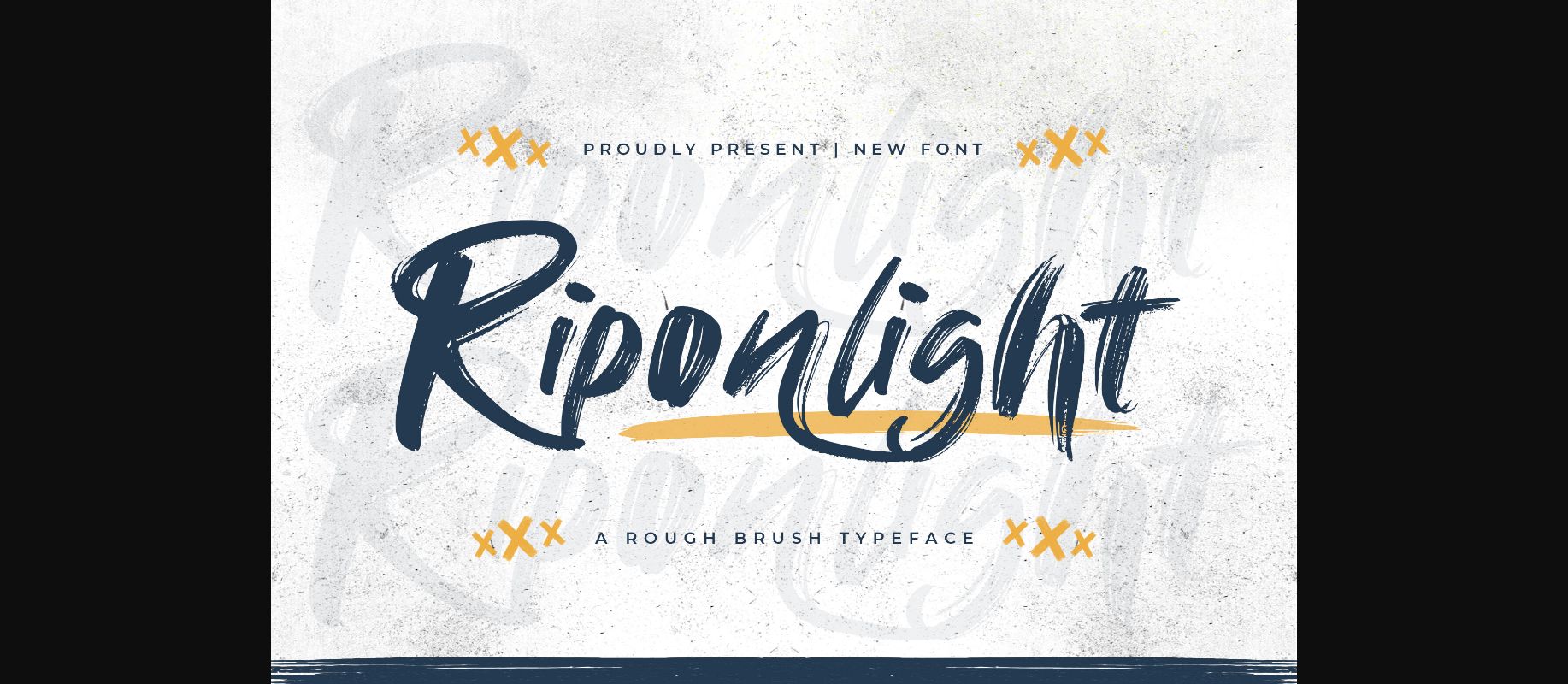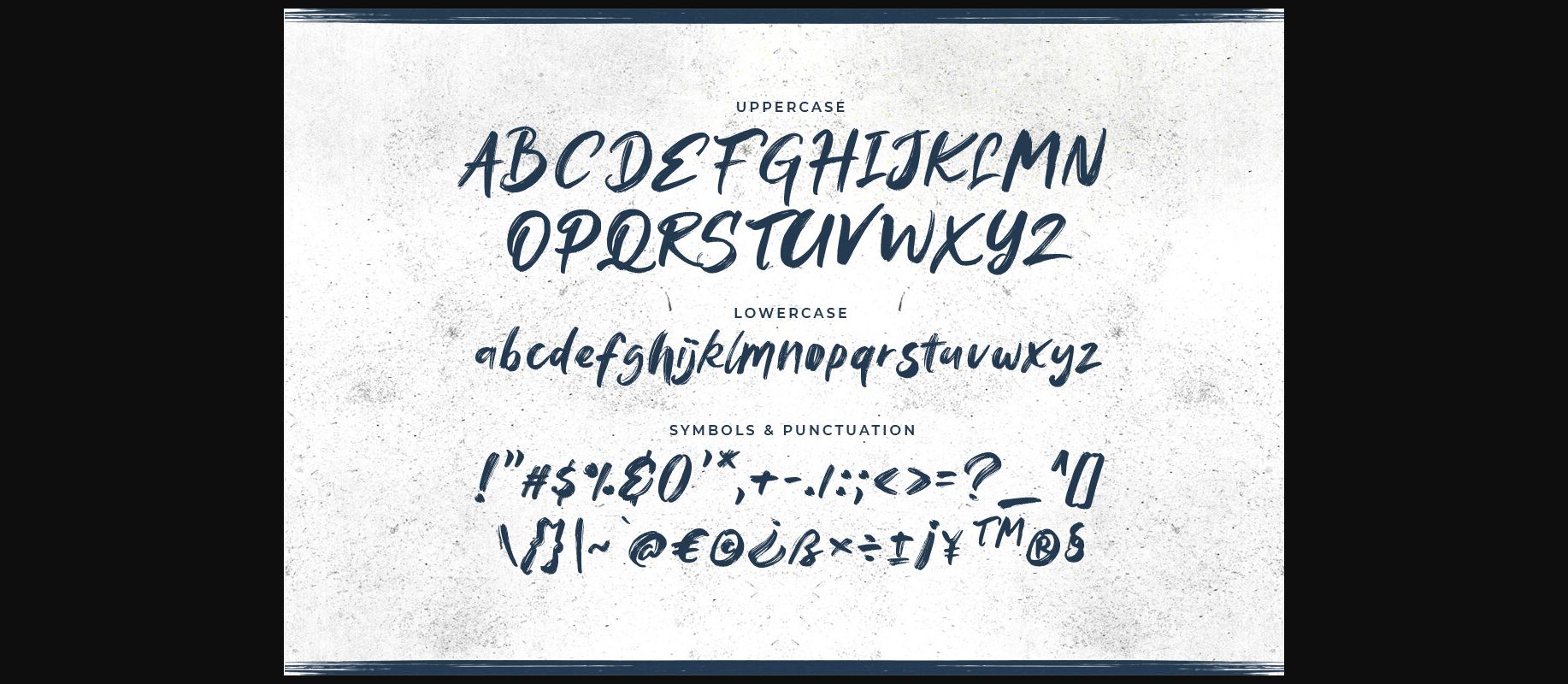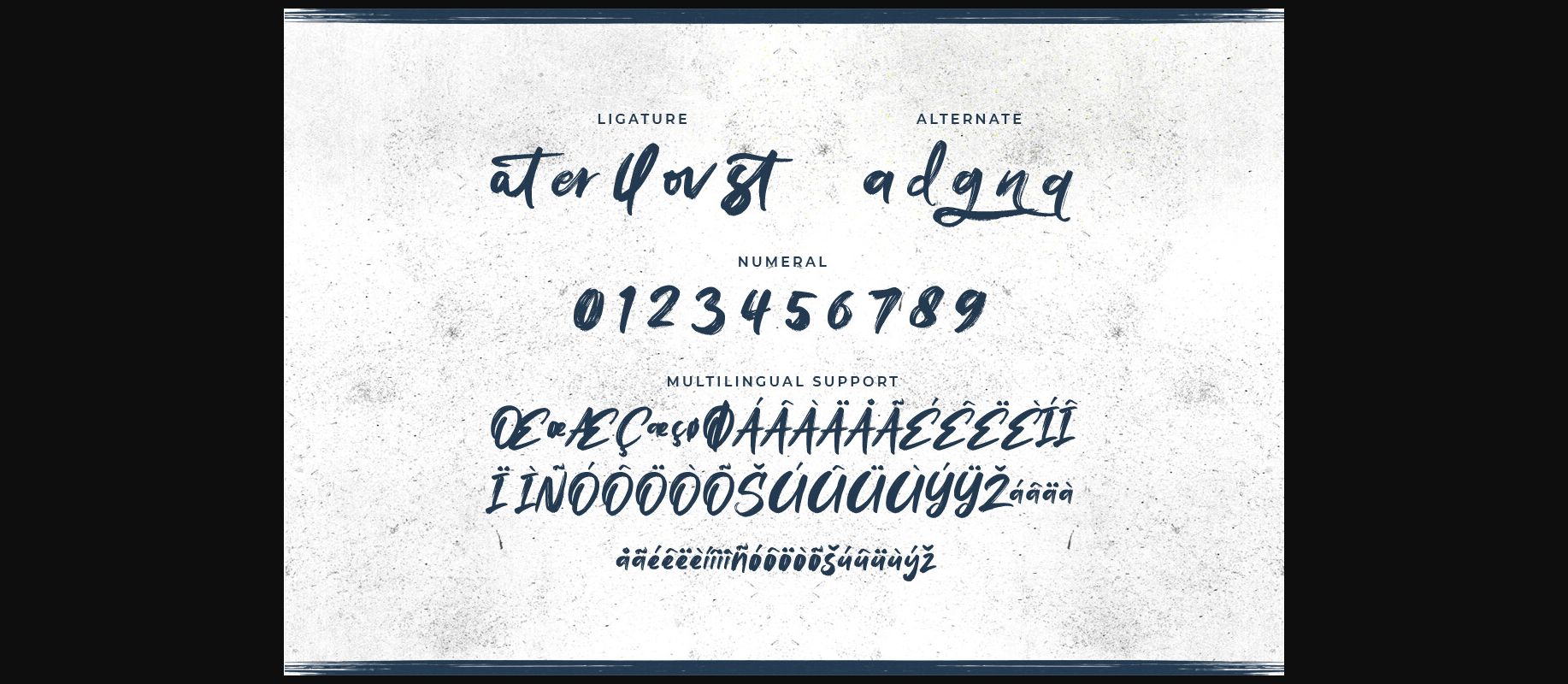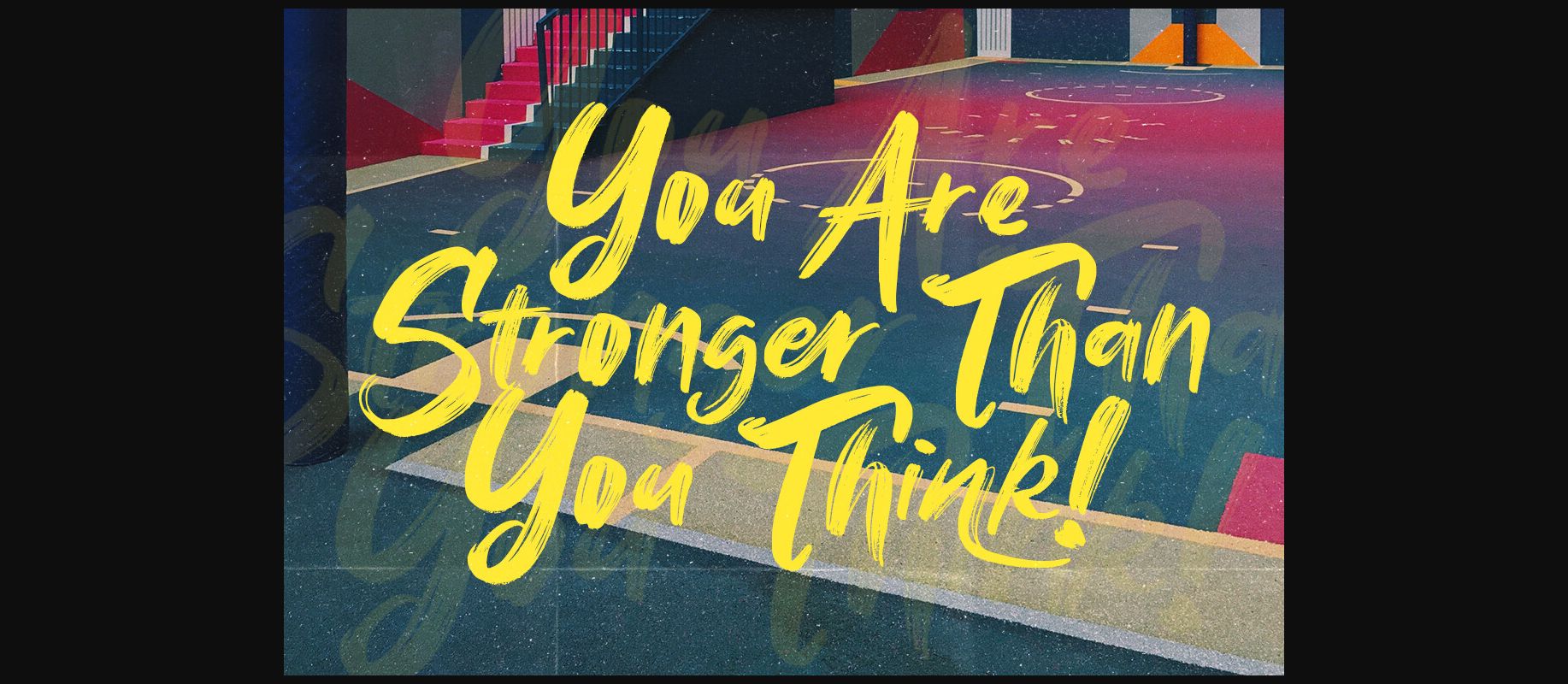
About Riponlight Font
Unleash creativity with “Riponlight” – a rough brush typeface that adds a touch of raw energy to your designs!
With its textured and expressive letterforms, “Riponlight” captures the essence of artistic spontaneity. Each character is meticulously crafted to bring a sense of authenticity and uniqueness, making it perfect for handcrafted logos, gritty posters, adventurous branding, and more.
Embrace the dynamic vibe of “Riponlight” as it infuses your projects with character. Whether you’re creating rugged album covers, urban graffiti, captivating headlines, or edgy social media graphics, this typeface will captivate your audience with its rough and vibrant style.
Explore the world of raw creativity with “Riponlight” and watch your designs come to life!
With its textured and expressive letterforms, “Riponlight” captures the essence of artistic spontaneity. Each character is meticulously crafted to bring a sense of authenticity and uniqueness, making it perfect for handcrafted logos, gritty posters, adventurous branding, and more.
Embrace the dynamic vibe of “Riponlight” as it infuses your projects with character. Whether you’re creating rugged album covers, urban graffiti, captivating headlines, or edgy social media graphics, this typeface will captivate your audience with its rough and vibrant style.
Explore the world of raw creativity with “Riponlight” and watch your designs come to life!